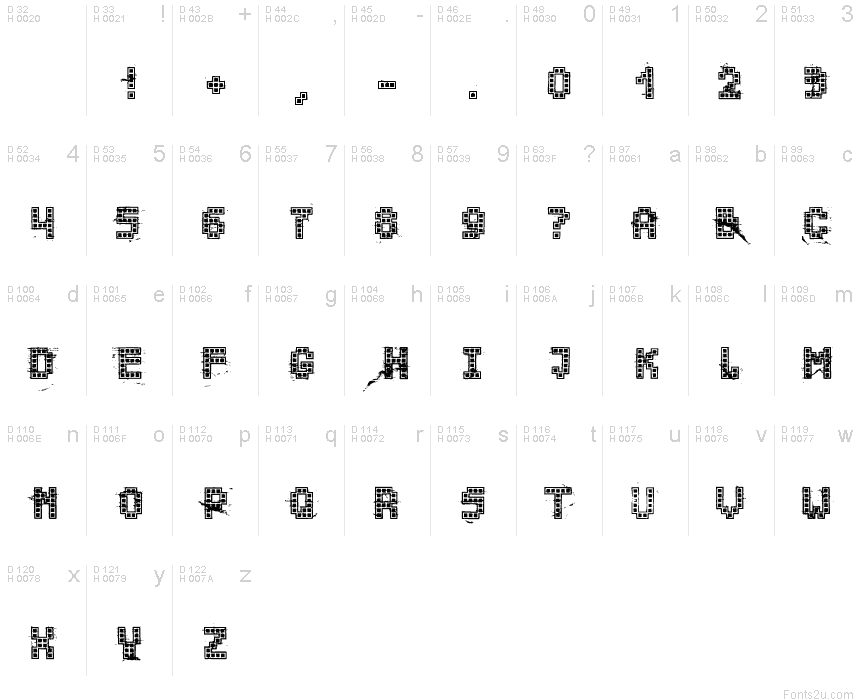
Chucky Mendoza Drunken by Thomas Schostok is a free distressed digital display font built from angular, segmented capitals. Rectangular cutouts and broken crossbars make the letters resemble damaged circuitry or industrial panels. Scattered erosion roughens the edges and interrupts the otherwise rigid geometry.
Circuit diagrams and glitch graphics provide a natural setting for its fractured structure. It fits electronic music posters, game interfaces, and technology-themed merchandise. On album packaging, the lettering can become part of the surrounding machinery, with its internal blocks echoing switches, windows, and circuit traces.